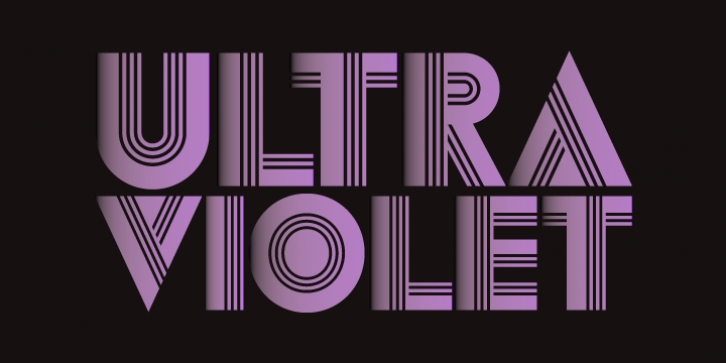
A modern display typeface with ultra sharp detailing. The unique line style takes influence from earlier fonts produced in the 1970’s by Letraset. These lines are then blended with a stronger letterform creating a more visually dynamic font suitable for today’s market. Details include: three unique styles, all caps character set with alternatives, manually edited kerning and Euro symbol.